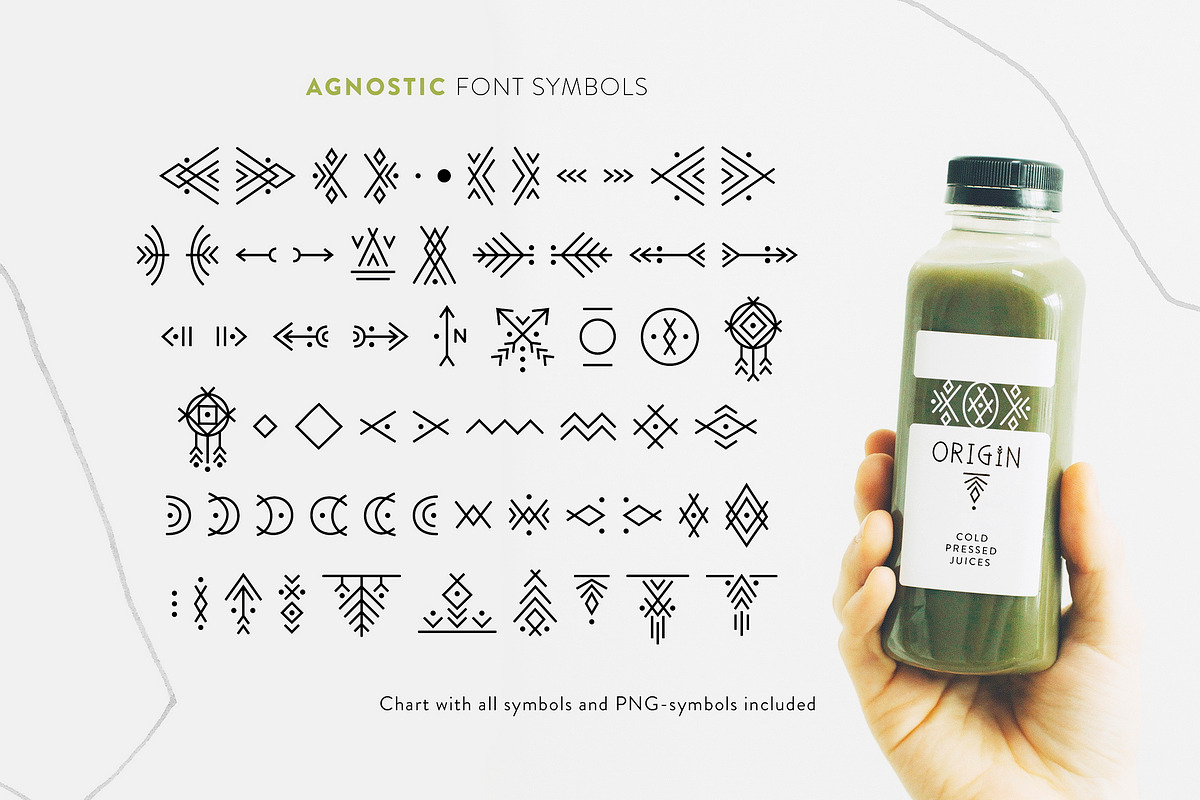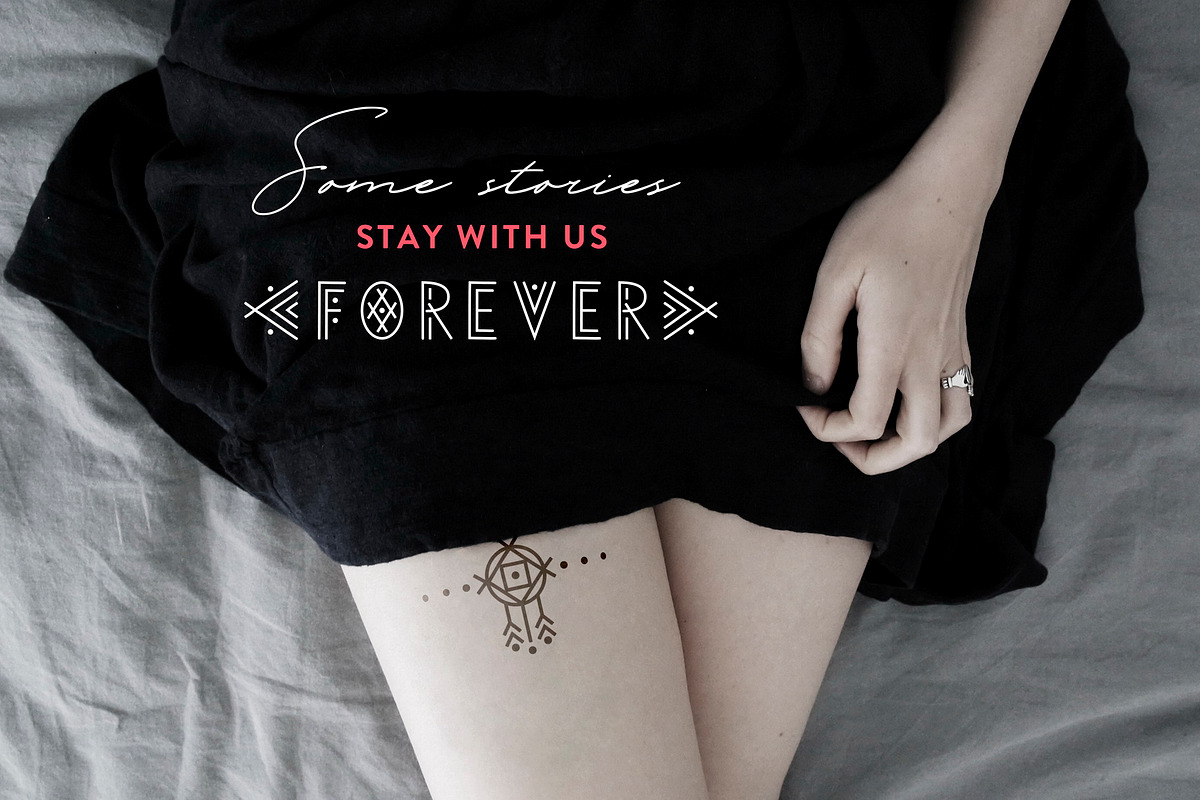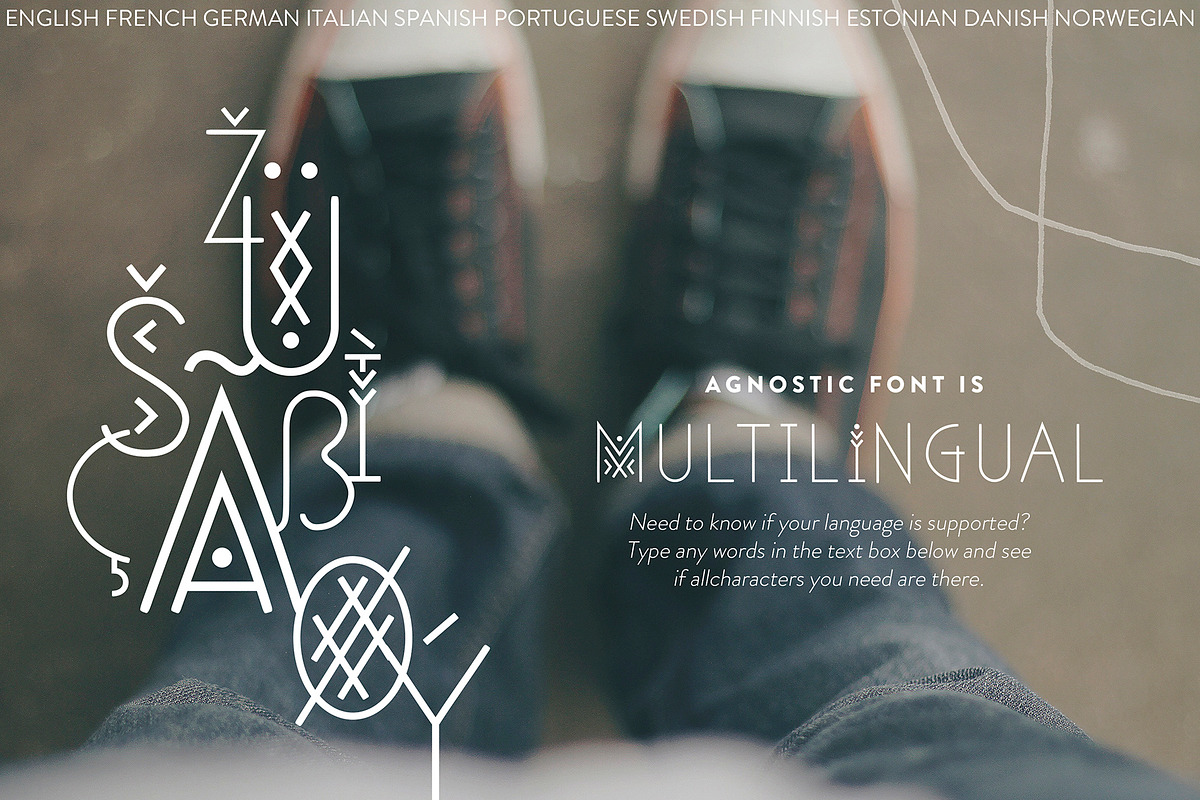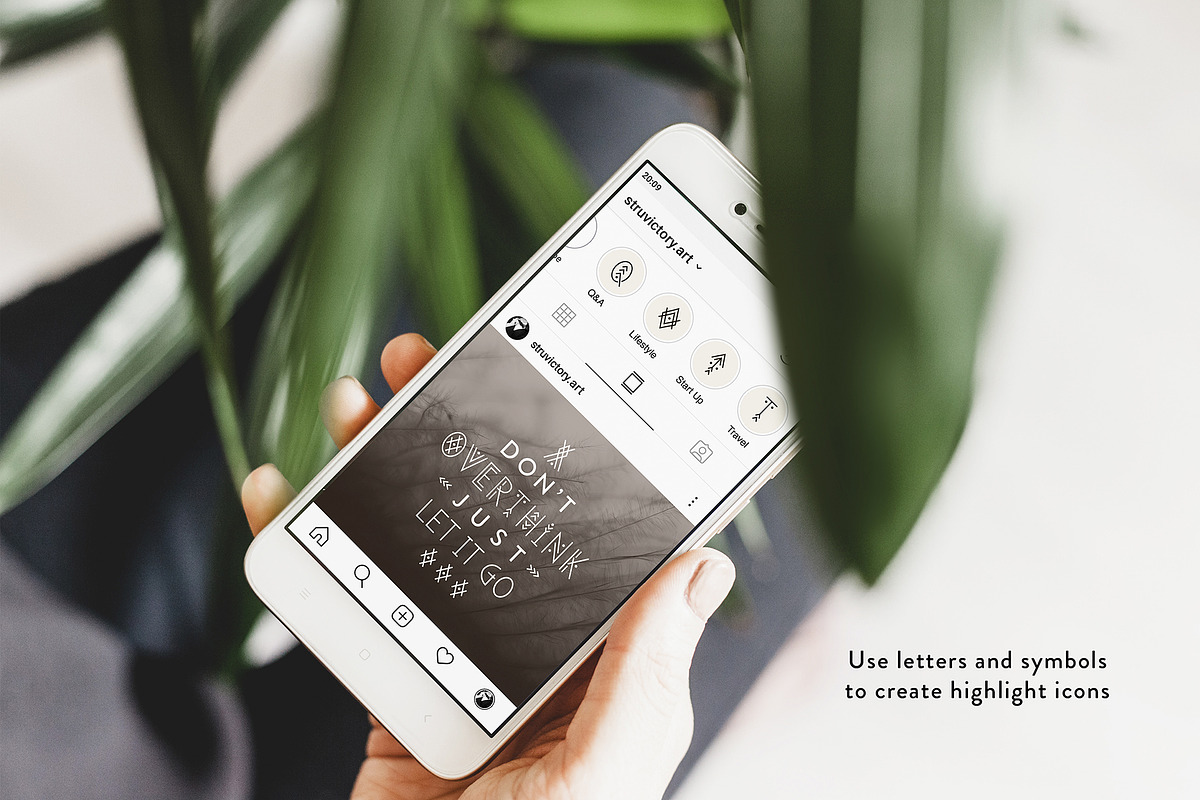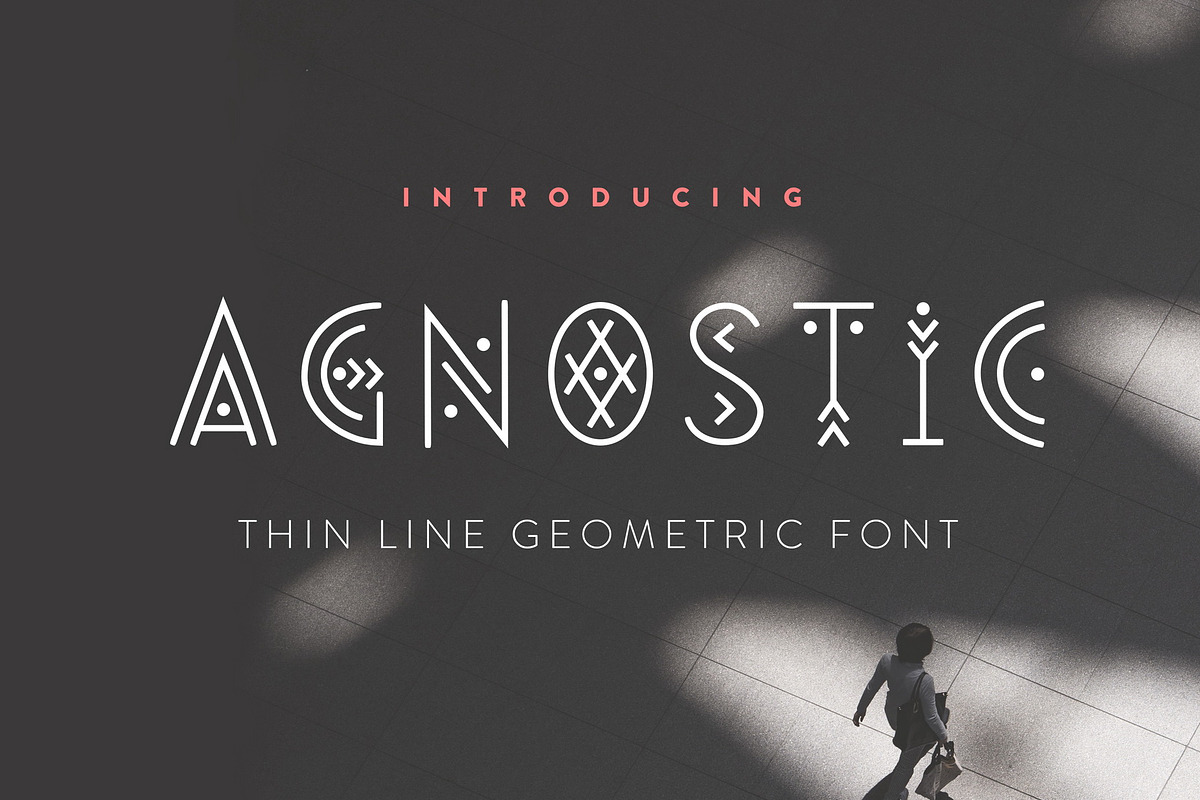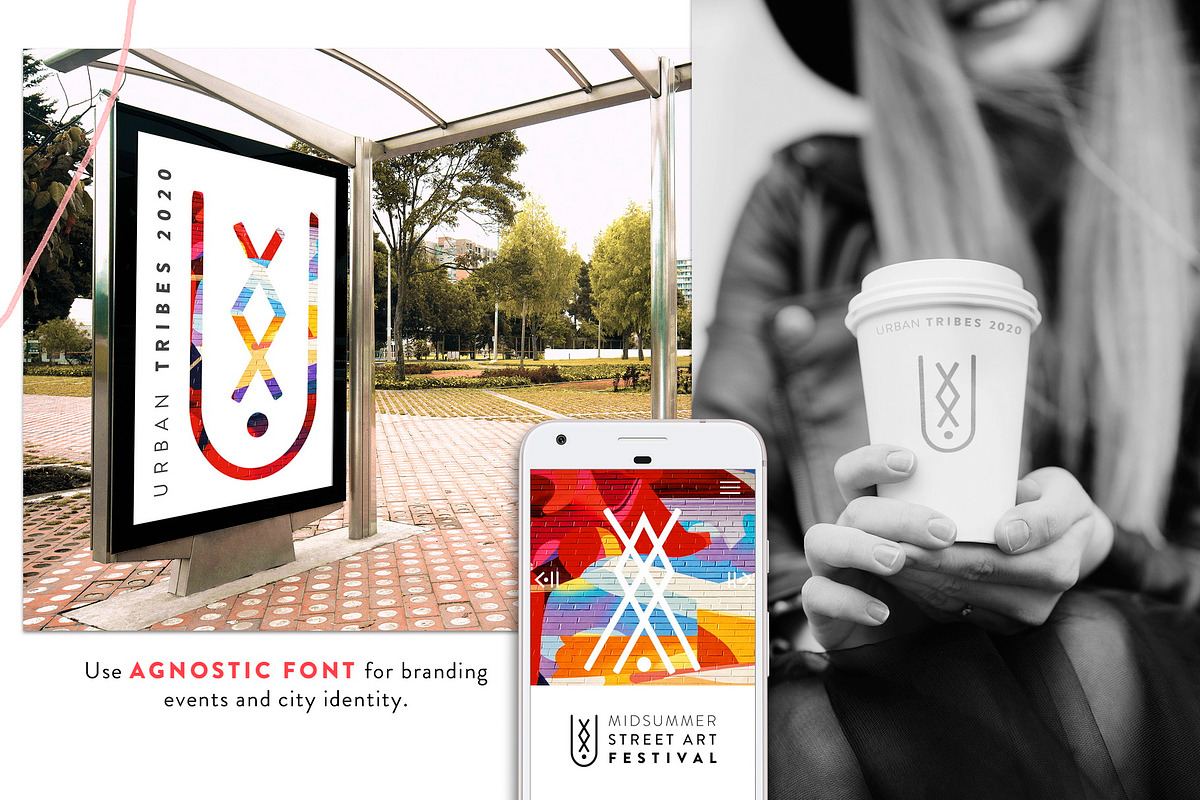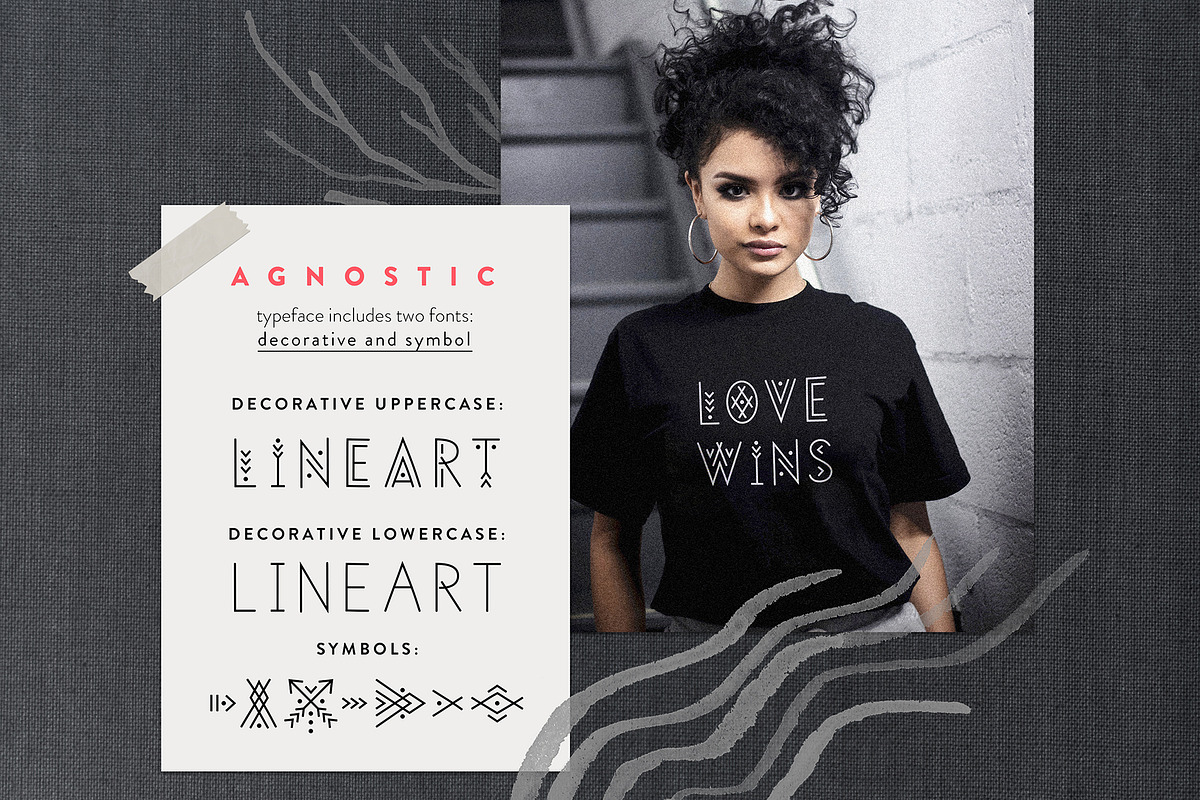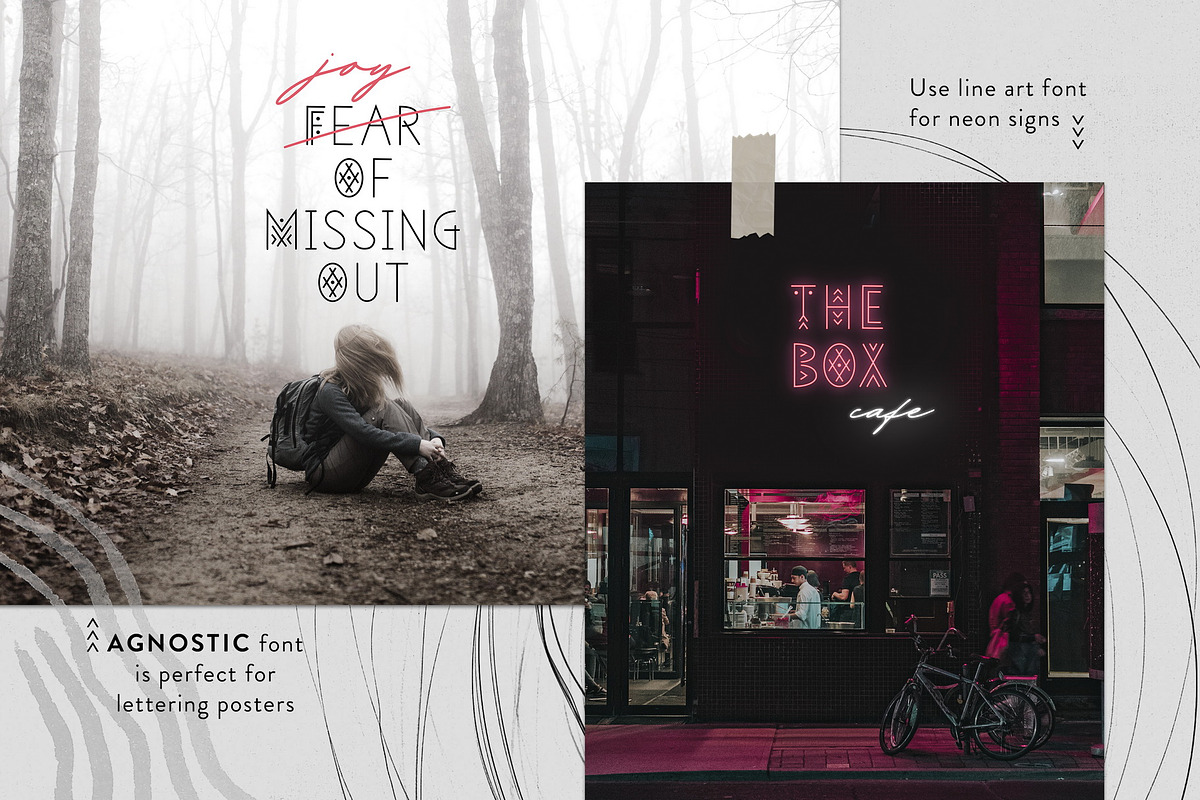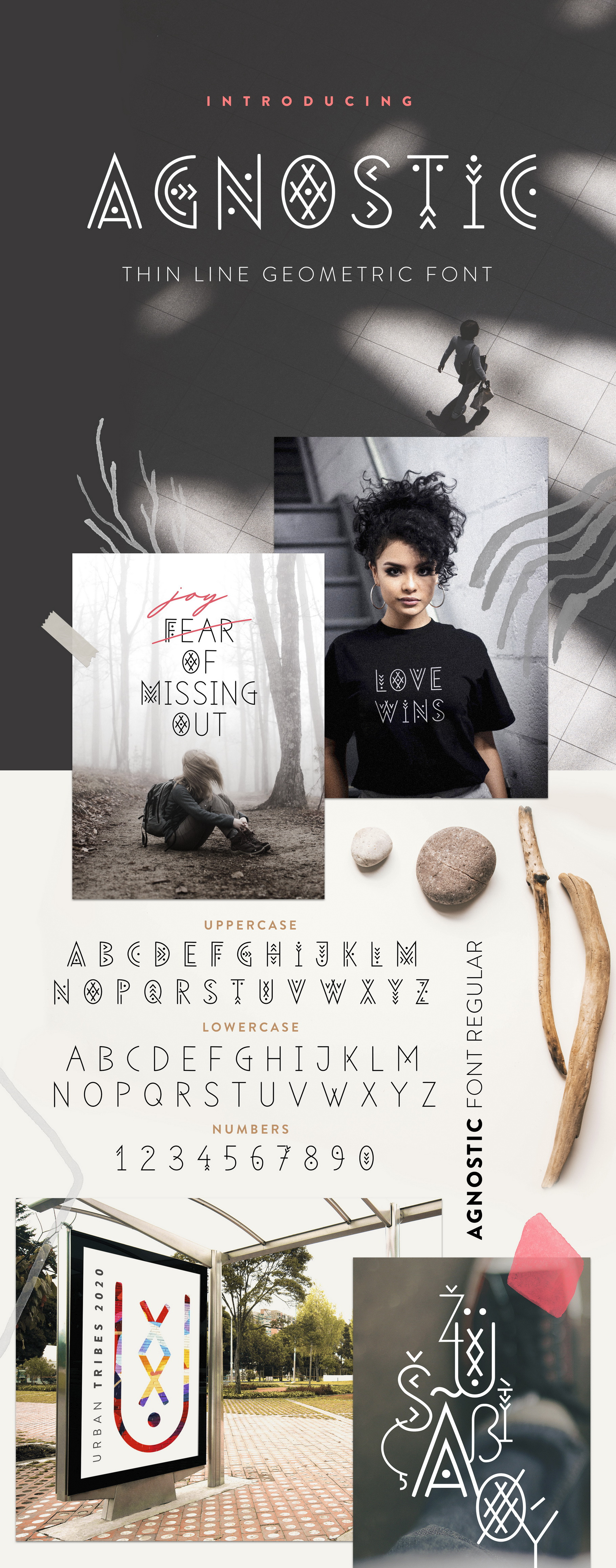
Agnostic - Thin Line Geometric Font
I would like to introduce my new product Agnostic Thin Line Geometric Font. Agnostic is a linear font in minimalistic style, uppercase is decorated with geometric elements. The typeface includes Regular and Symbol versions. Letters and symbols are perfectly combined with each other. The font is easy to use in various design programs or without any program.
Agnostic Typeface font is suitable for lettering posters, music albums, tattoos and photo overlays in hipster style. The font is also suitable for event design and city identity. The font works great both for printing clothes and craft products branding and packaging. Also use individual letters and symbols to create logos and monograms.
The font has extensive language support, it includes English, French, German, Italian, Spanish, Portuguese, Danish, Norwegian, Swedish, Finnish, Estonian. Need to know if your language is supported? Type any words in the text box below and see if all characters you need are there.